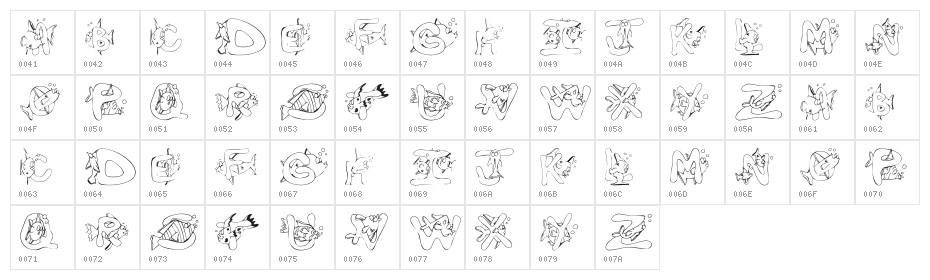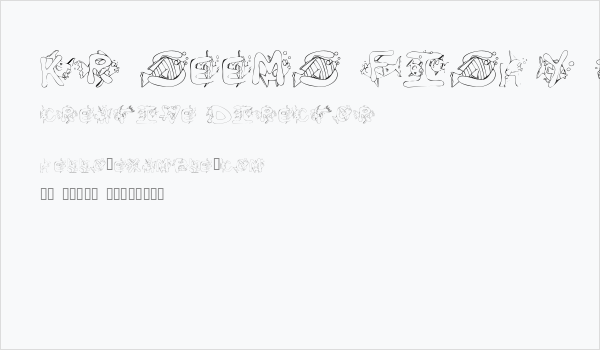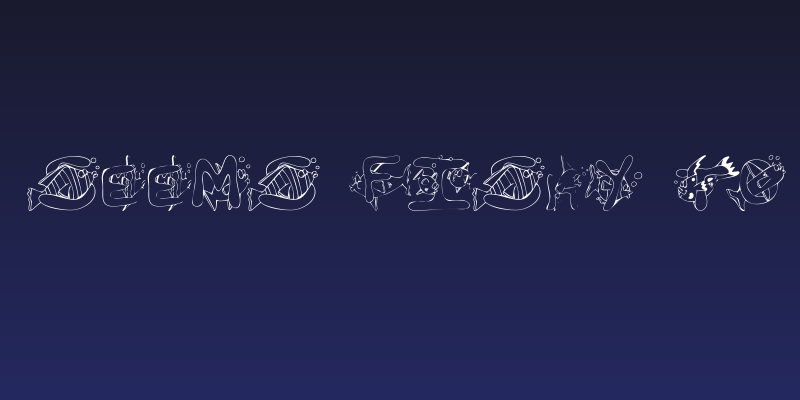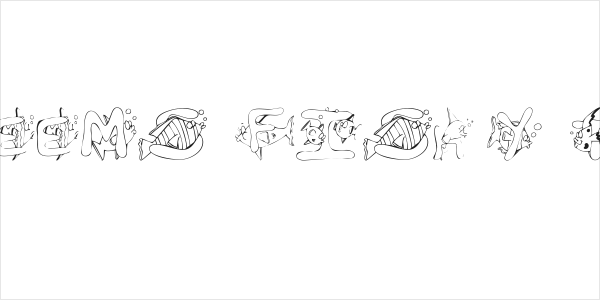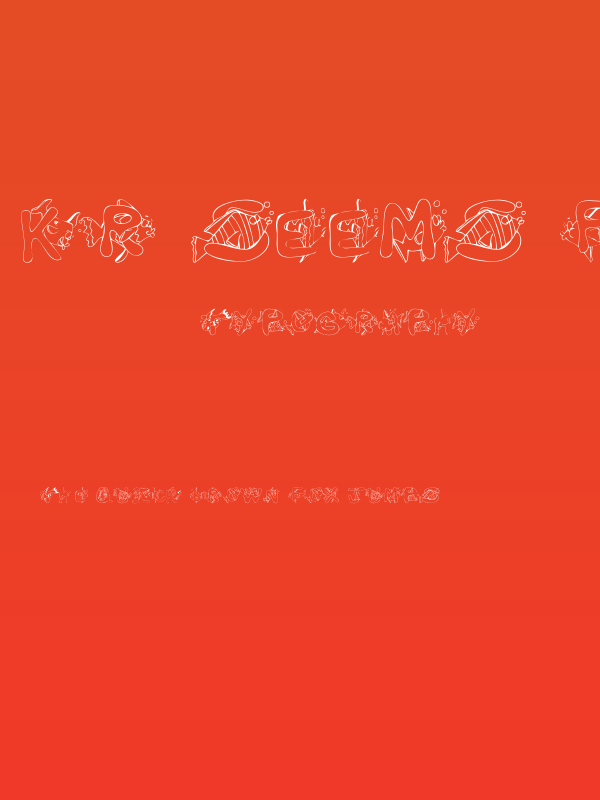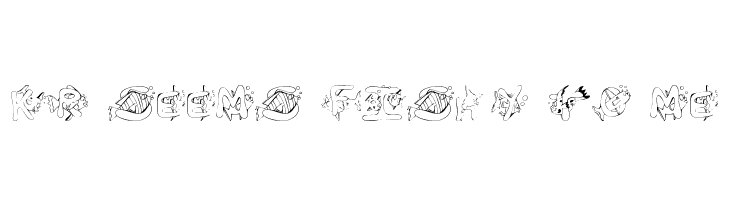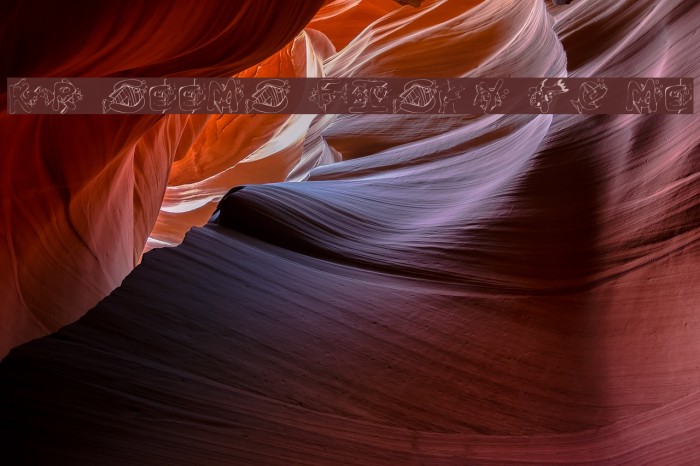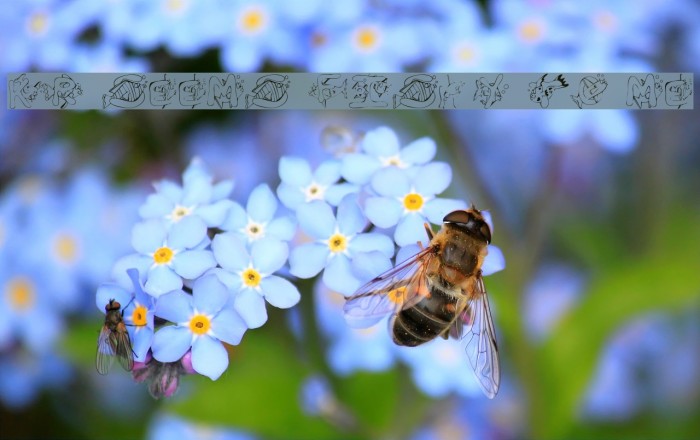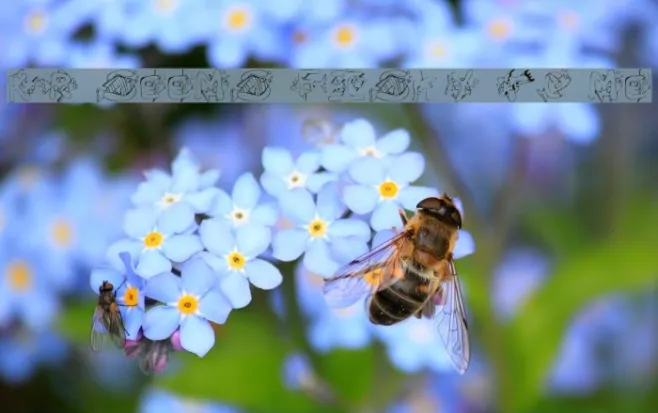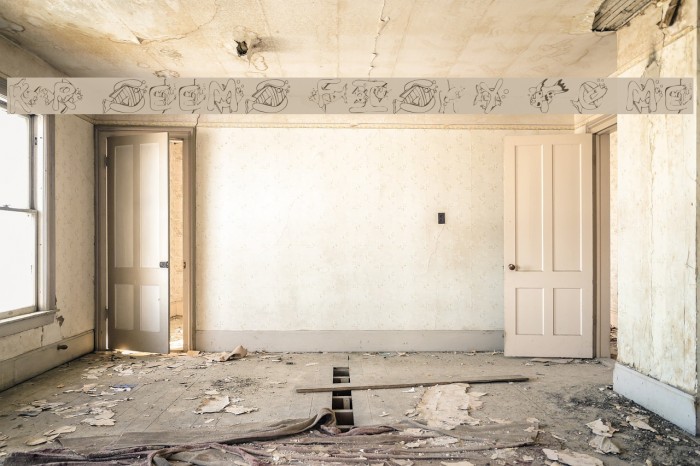
KR Seems Fishy To Me Font
KR Seems Fishy To Me Description
This playful and whimsical font features characters adorned with aquatic-themed illustrations, including fish and other sea creatures. Each letter is uniquely designed, incorporating elements of marine life, creating a lively and engaging visual experience. The font is highly decorative, making it ideal for projects that require a fun and thematic touch. The characters are intricately detailed, with a focus on creativity and imagination, making it suitable for children's books, ocean-themed events, or playful branding. The font's artistic nature makes it stand out, offering a unique blend of typography and illustration.
| Use Case | Logos, Headlines, Themed events |
| Proposed Projects | Ideal for children's books, ocean-themed events, playful branding, and creative projects. |